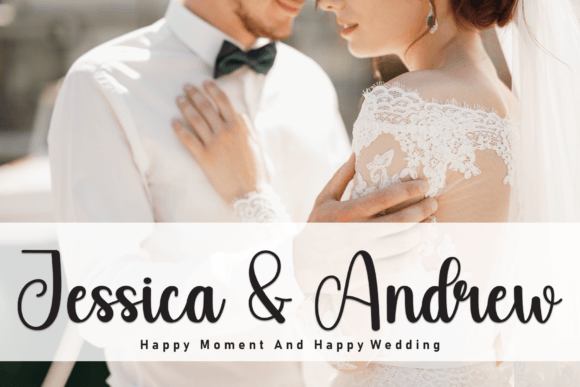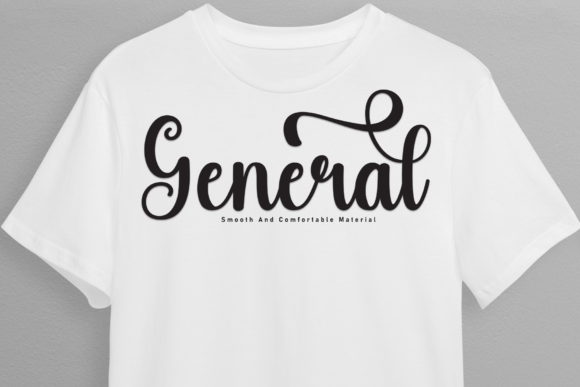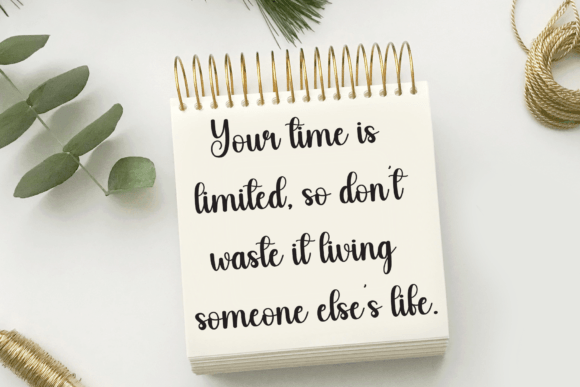
Introduction to New Beach Font
Imagine you’re strolling along a serene beach at sunset, feeling the warm breeze and listening to the soothing sound of the waves. It’s in moments like these that creativity strikes, and you start envisioning the perfect design for your next project. For designers, finding the right font can be the missing piece to bring their vision to life.
Enter the New Beach Font, a beautiful handwritten font that adds an elegant touch to any project. With its distinct and timeless style, this font is perfect for designers looking for a high-quality design resource. Whether you’re working on a creative project or just need a reliable font for your next design, the New Beach Font is a valuable addition to your toolkit.
Key Features of New Beach Font
- Unique, hand-drawn style with a relaxed, beach-inspired aesthetic
- Perfect for use in branding, logos, and other design elements where a casual, laid-back vibe is desired
Honest Review: New Beach Font
As a designer, I’m always on the lookout for high-quality design resources to elevate my creative projects. The New Beach Font is one of the latest additions to my collection, and I’m excited to share my thoughts on it.
- Perfect for beach-inspired and elegant designs
How to Use New Beach Font
The New Beach Font is a high-quality design resource perfect for any creative project that needs a touch of coastal charm. With its transparent background and elegant style, it’s a versatile font that can be used in a variety of contexts.
Tips for Getting the Most Out of the New Beach Font
To get the most out of the New Beach Font, try using it in combination with other design elements, such as images and graphics, to create a cohesive and visually appealing design.
The New Beach Font is perfect for a variety of use cases, including:
- Beach-themed designs and branding
- Summer-themed designs and packaging
- Travel and tourism branding
Alternatives to New Beach Font